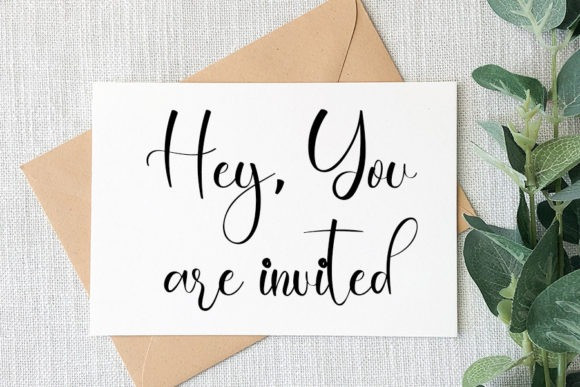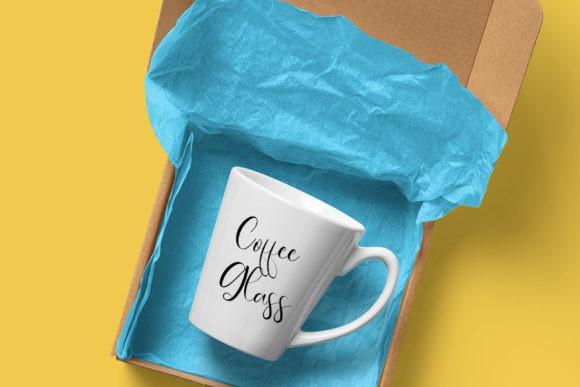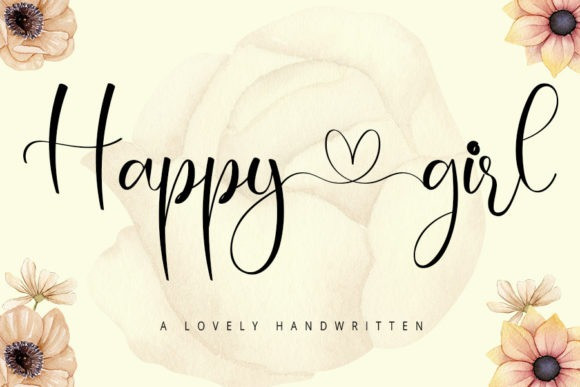
Happy Girl Font
Happy Girl Font is an exquisite handwritten font, masterfully designed to become a true favorite. It maintains its classy calligraphic influences while feeling contemporary and fresh. Fall in love with it and bring your projects to the highest levels!